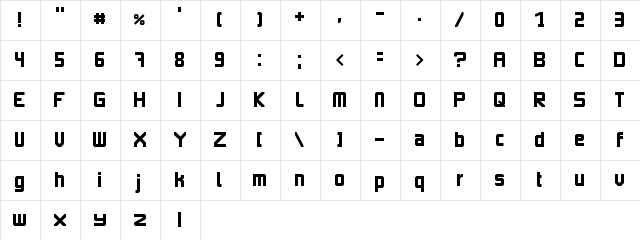
imagine earth Regular
| Designer | jokipoki |
Design Context for imagine earth Typeface
imagine earth offers clean, dependable letterforms without strong stylistic allegiance, making it a practical choice for designers who need flexibility.